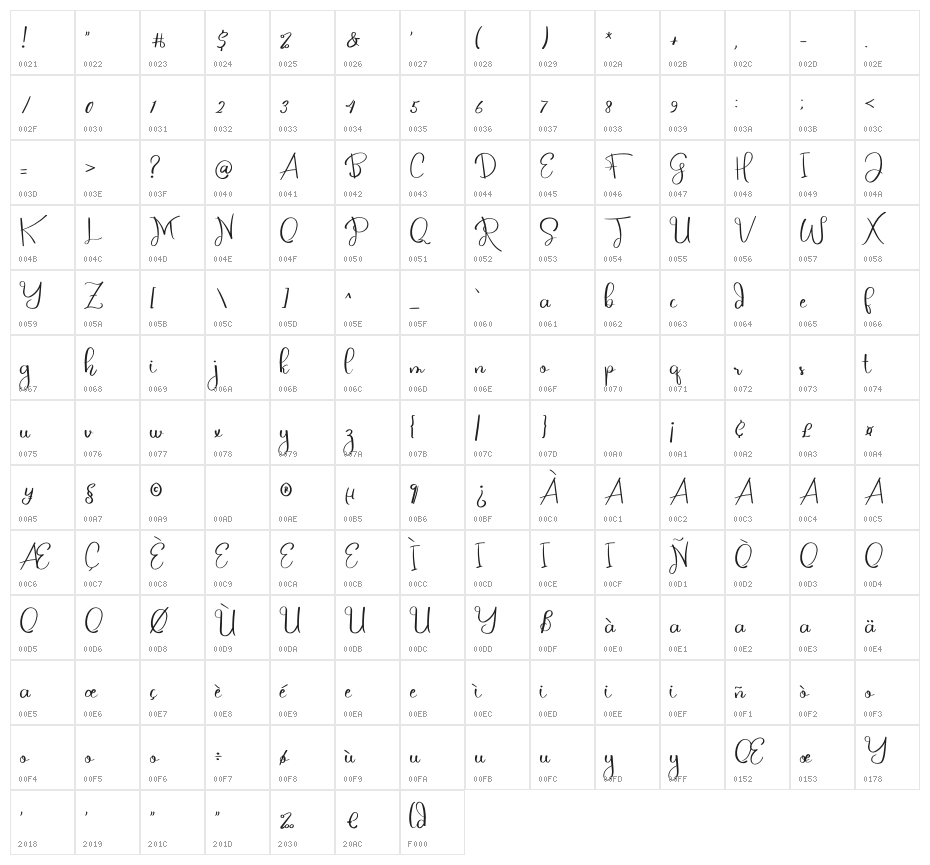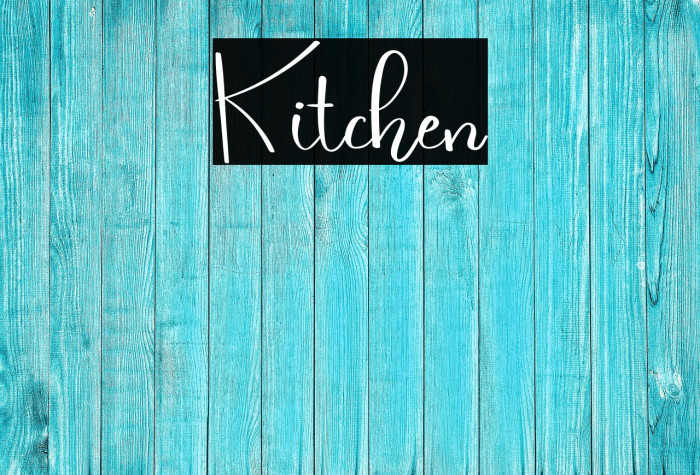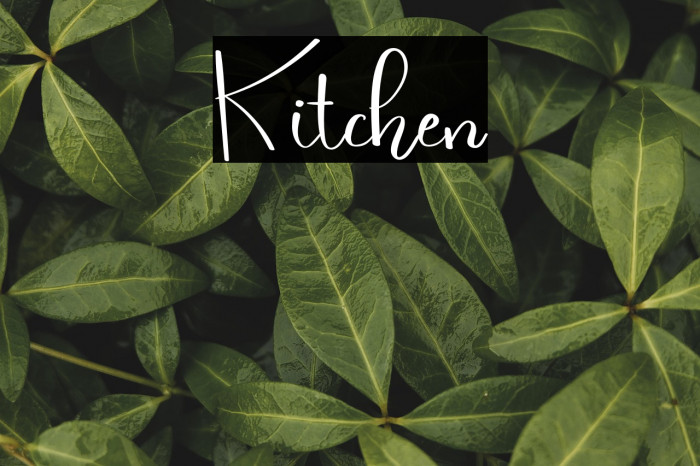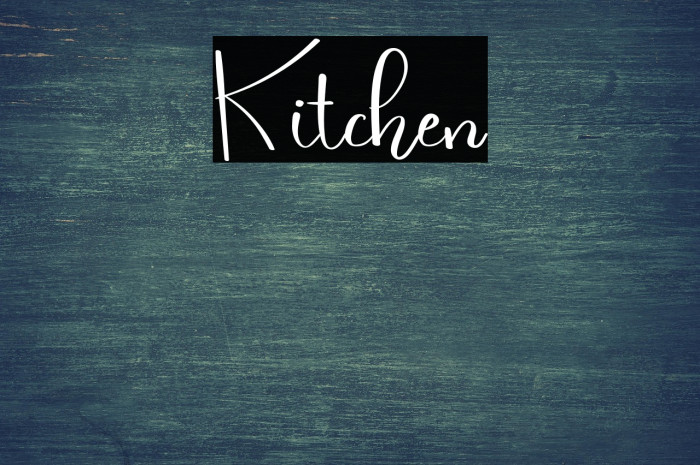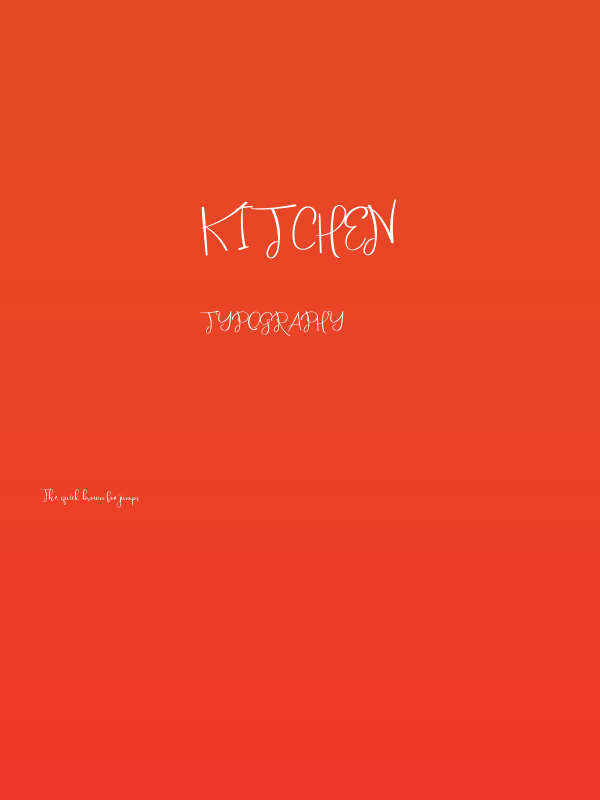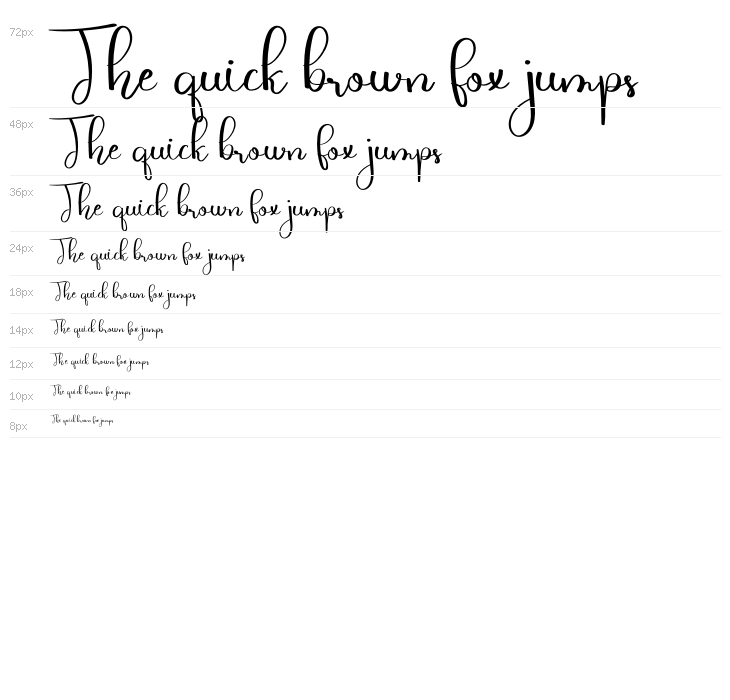
Kitchen Font
Kitchen Description
This font features a playful and elegant script style with a handwritten appearance. The uppercase letters are tall and slightly whimsical, with varying stroke widths that add a dynamic feel. The lowercase letters are more fluid, with smooth curves and loops that enhance its casual yet sophisticated look. The numerals maintain the same playful style, making them cohesive with the alphabet. Special characters are creatively integrated, maintaining the font's overall aesthetic. The font's unique charm makes it suitable for projects that require a personal touch.
| Use Case | Logos, Invitations, Social Media |
| Proposed Projects | Ideal for wedding invitations, greeting cards, branding, and social media graphics. |